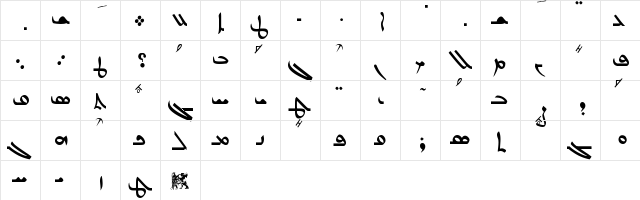
Assyria's Letters (West) Regular
Design Context for Assyria's Letters (West) Typeface
Assyria's Letters (West) is a composed and adaptable typeface that performs quietly and consistently across a wide range of design contexts.